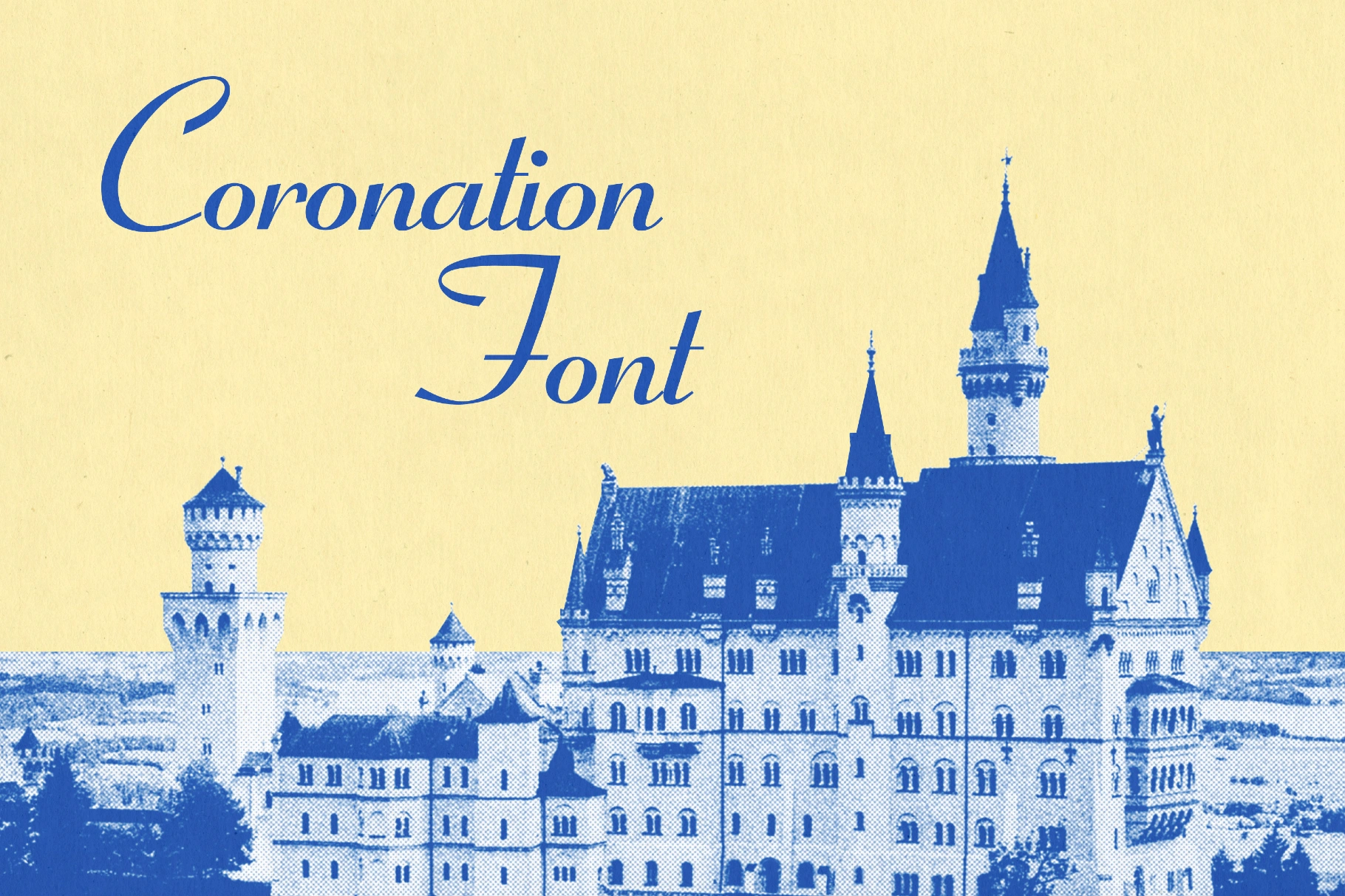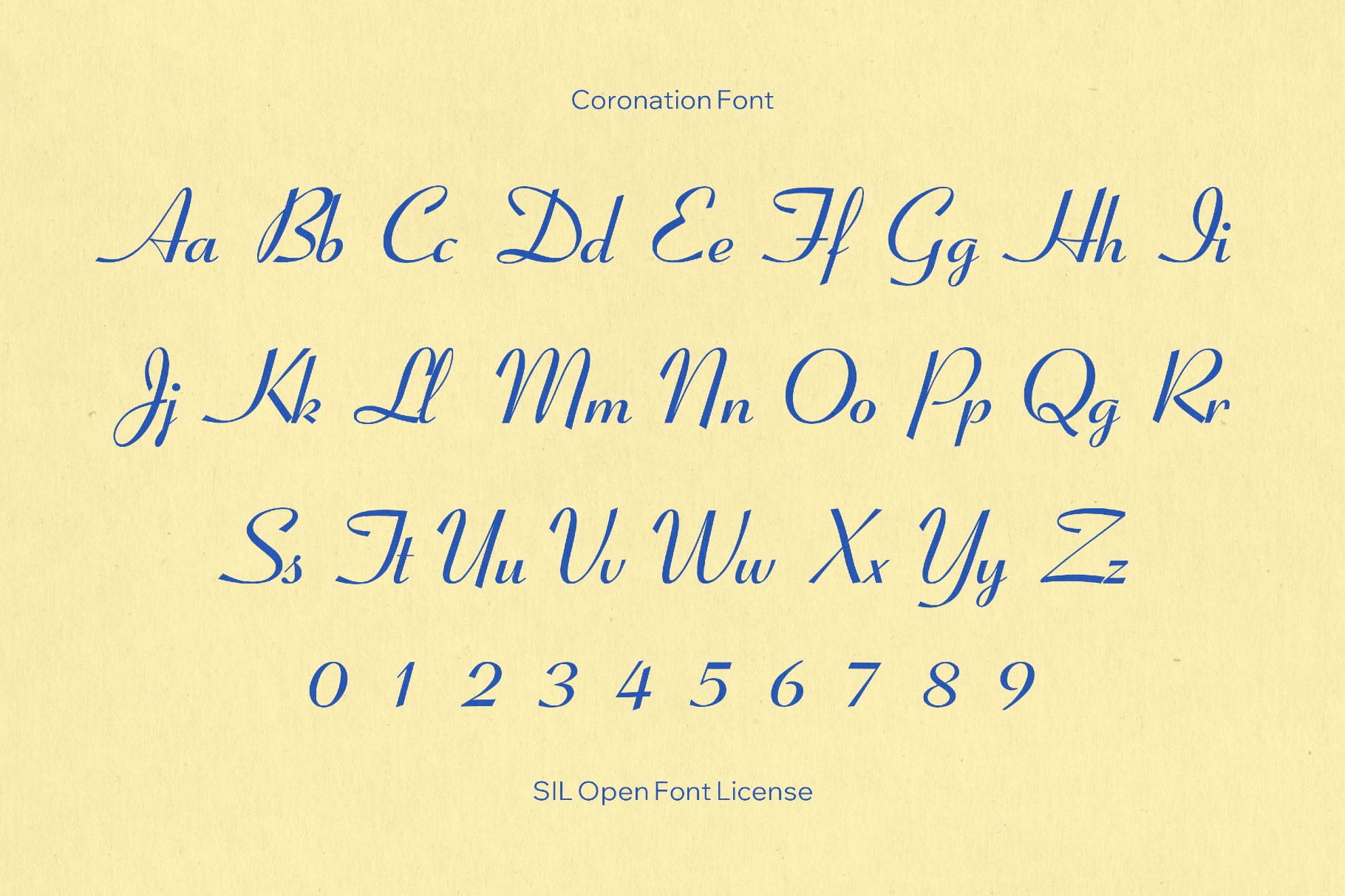
Coronation Font
QTCoronation
Coronation is a semi-formal ribbon wedding font that flourishes like a royal script from illuminated charters and ceremonial invitations, with sweeping curves, looped capitals, silky joins, and dignified contrasts. It suits stationery, monograms, fragrance labels, boutique logos, formal invitations, luxury or heritage branding, menus, certificates, packaging accents, and elegant signature-style social media marks where a graceful signature line leads.